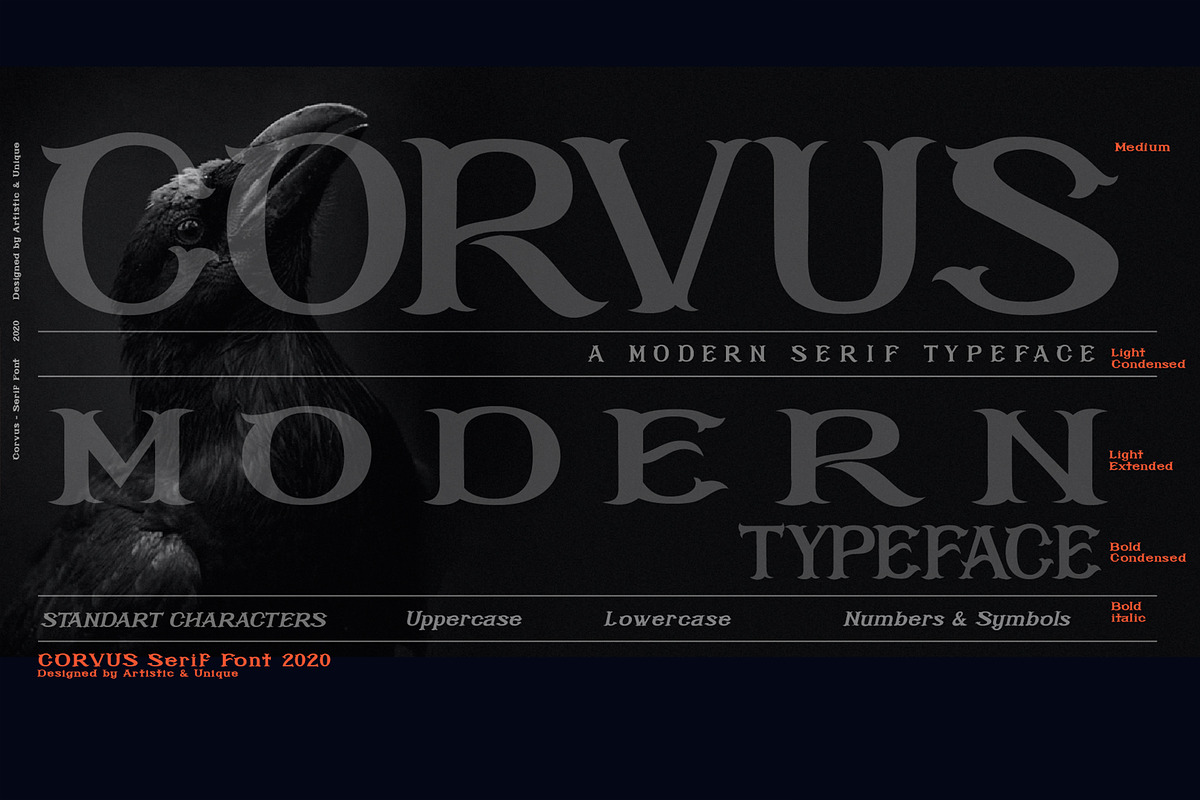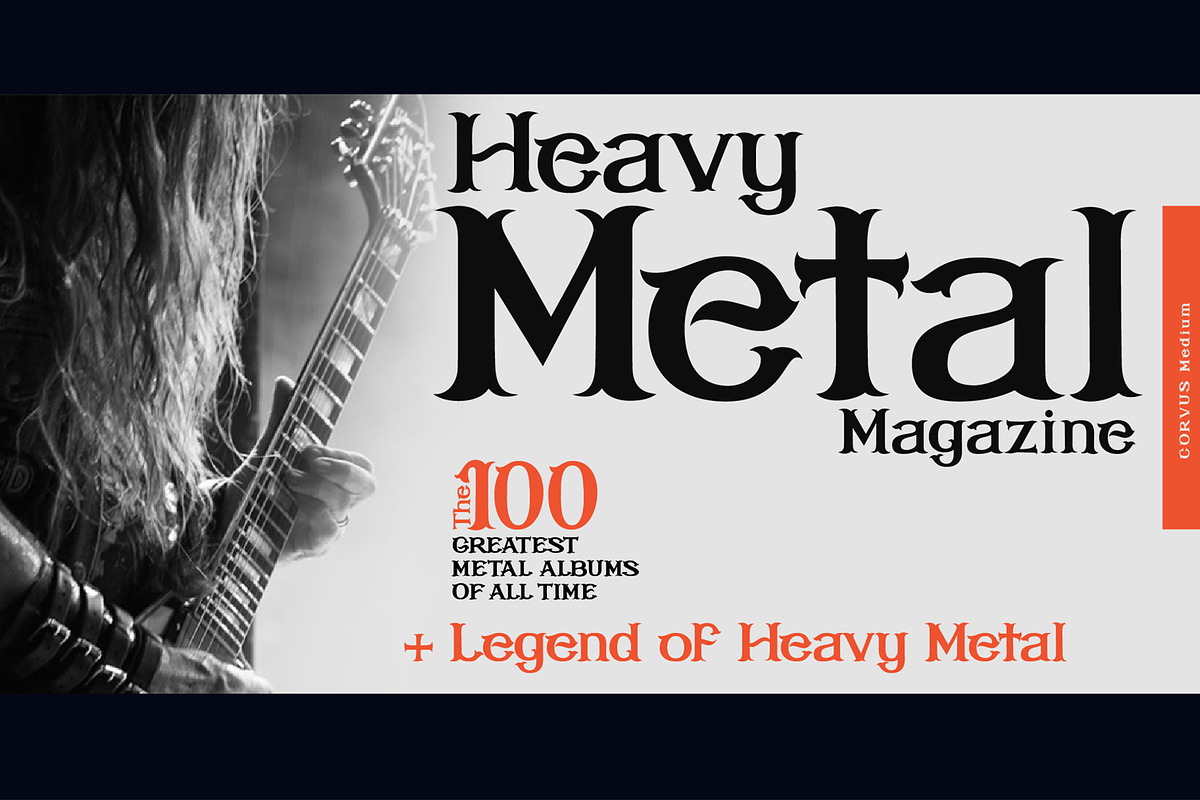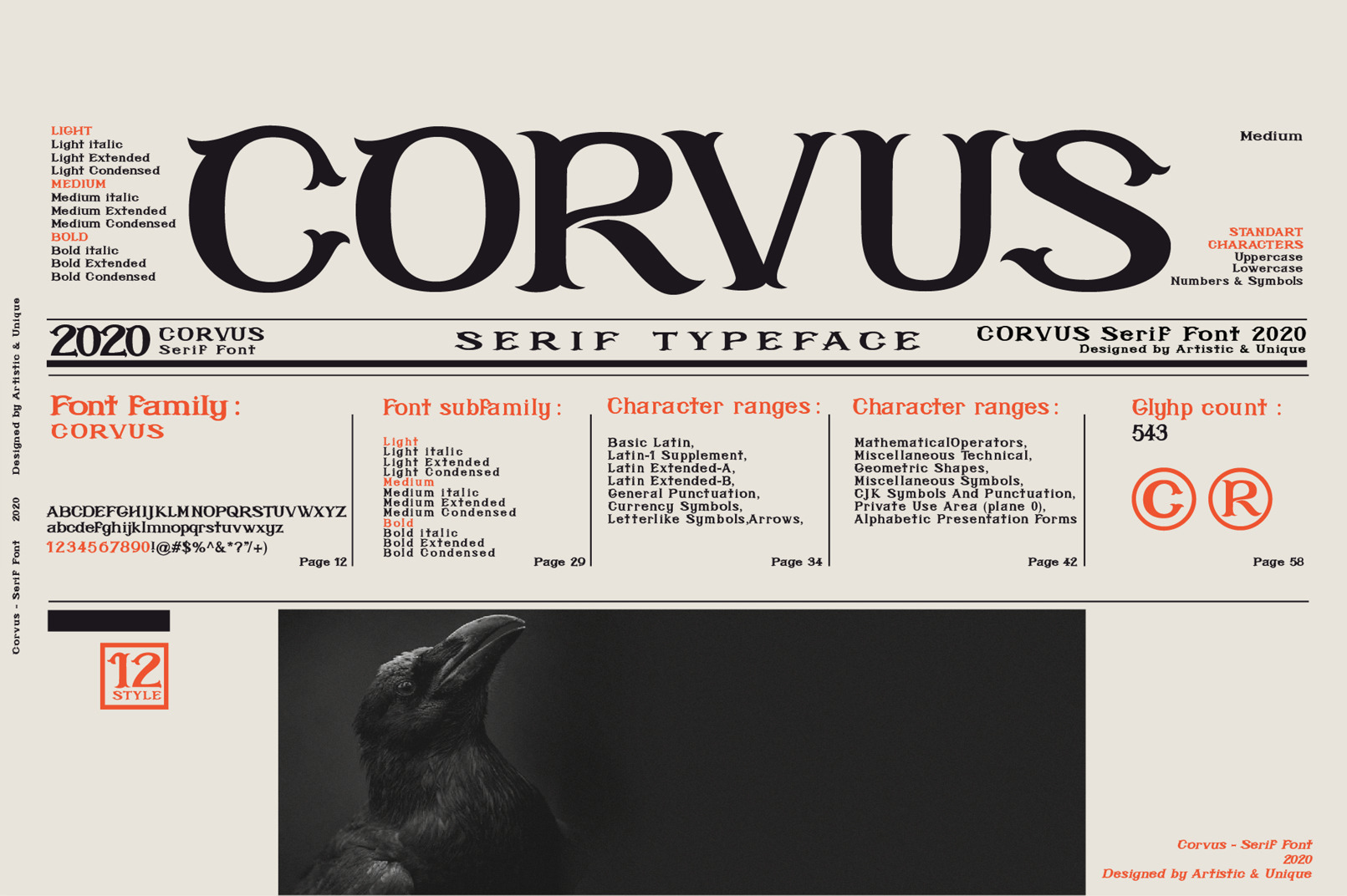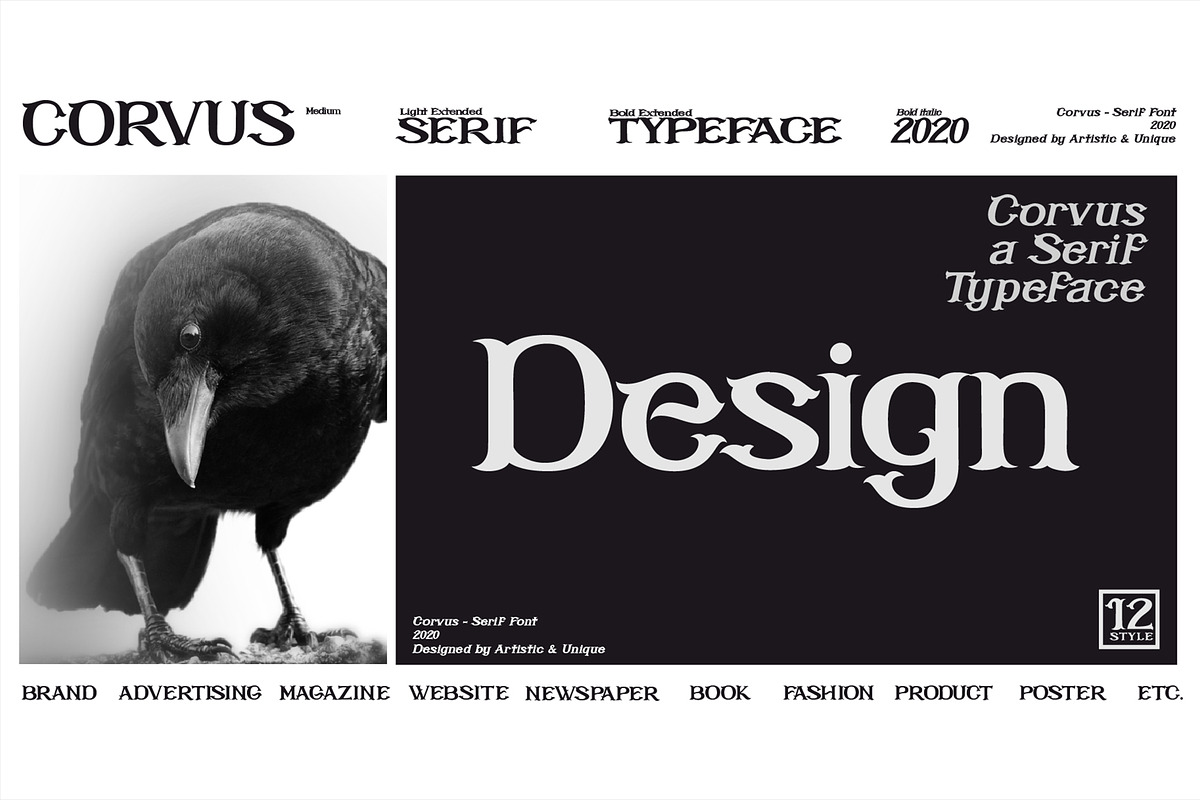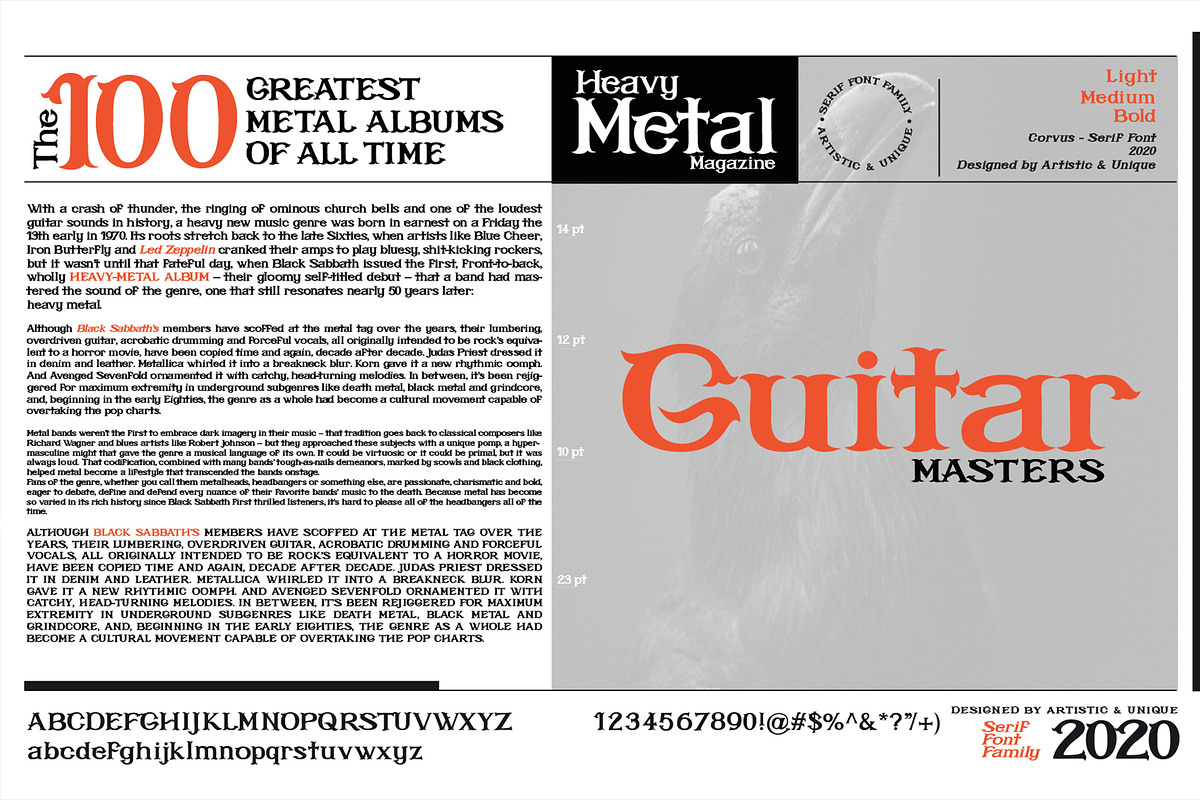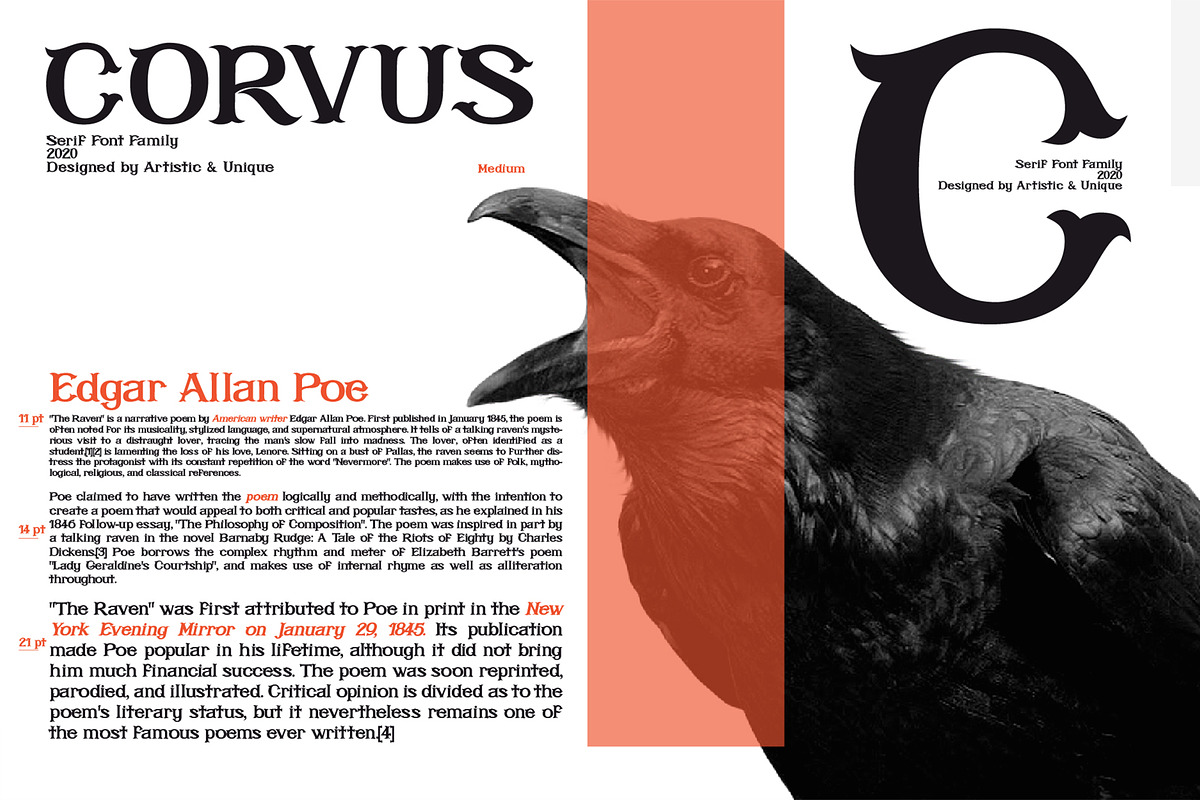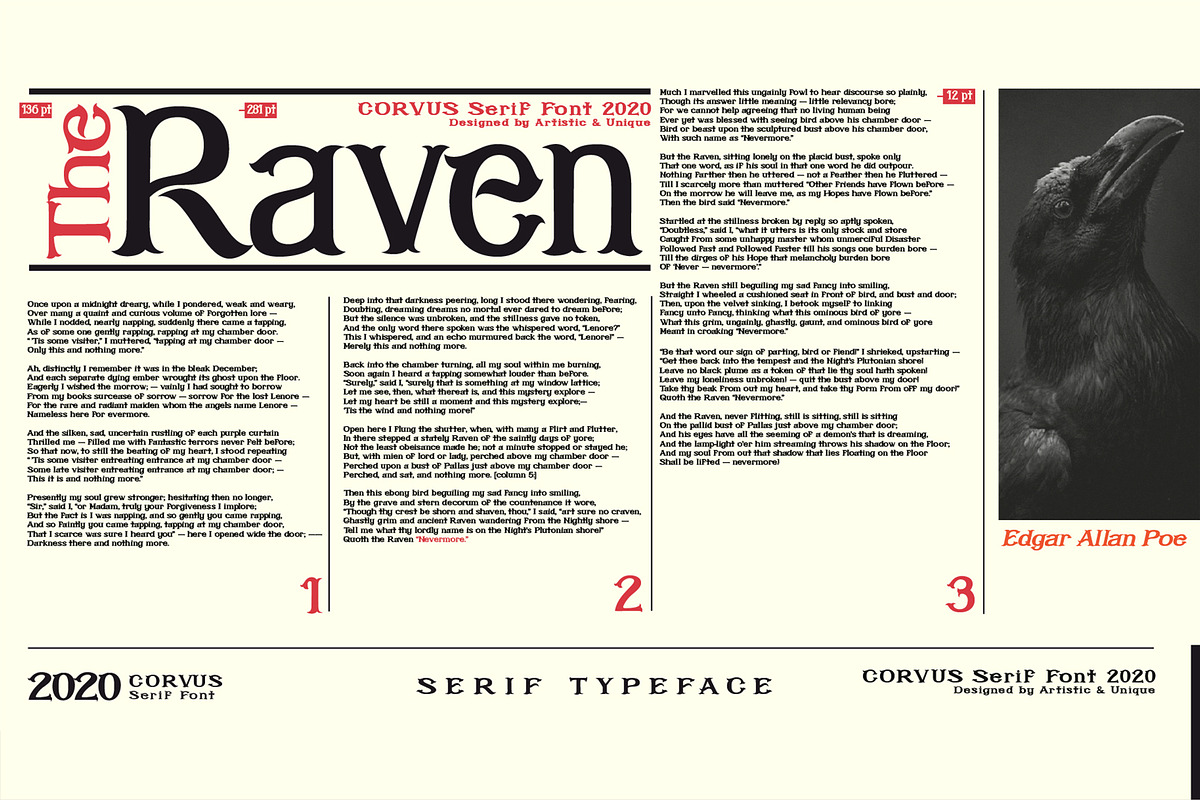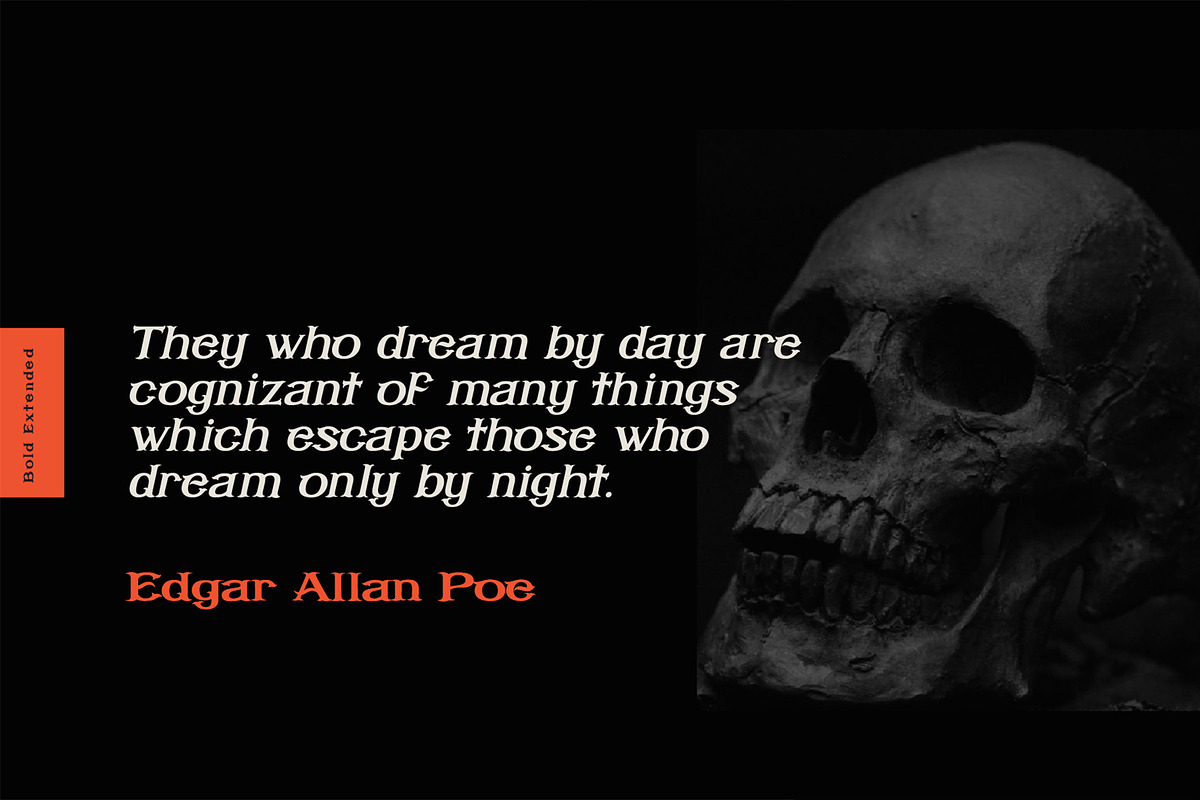
CORVUS Serif font
CORVUS Serif font Family - Multilingual (2020) - 12 STYLE
Corvus is a display serif font family, stylized with elegant soft turns that soften the sharp ends. Due to its structure, this font can meet your needs in all your modern or classic creative projects.
Corvus is ideal for creating your creative projects on similar subjects with its gloomy and Modern Gothic stance.
Absolutely perfect for titles, magazines, books, invitations, logos, packaging design, branding and more!
Corvus is the perfect font for your design ideas.
CORVUS
Light
Light italic
Light Extended
Light Condensed
Medium
Medium italic
Medium Extended
Medium Condensed
Bold
Bold italic
Bold Extended
Bold Condensed
- Basic Latin,
- Latin-1 Supplement,
- Latin Extended-A,
- Latin Extended-B,
- General Punctuation,
- Currency Symbols,
- Letter like Symbols,Arrows,
- Mathematical Operators,
- Miscellaneous Technical,
- Geometric Shapes,
- Miscellaneous Symbols,
- CJK Symbols And Punctuation,
- Private Use Area (plane 0),
- Alphabetic Presentation Forms
With this font you can create your unique designs.